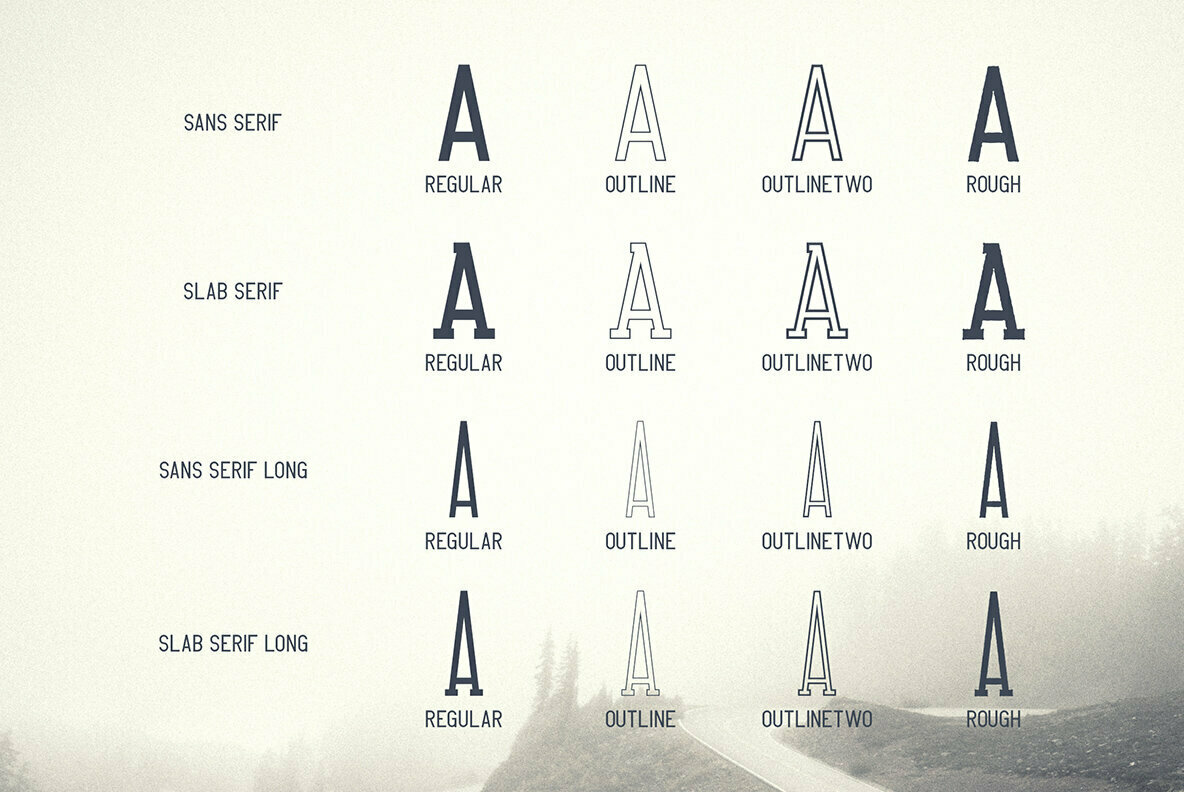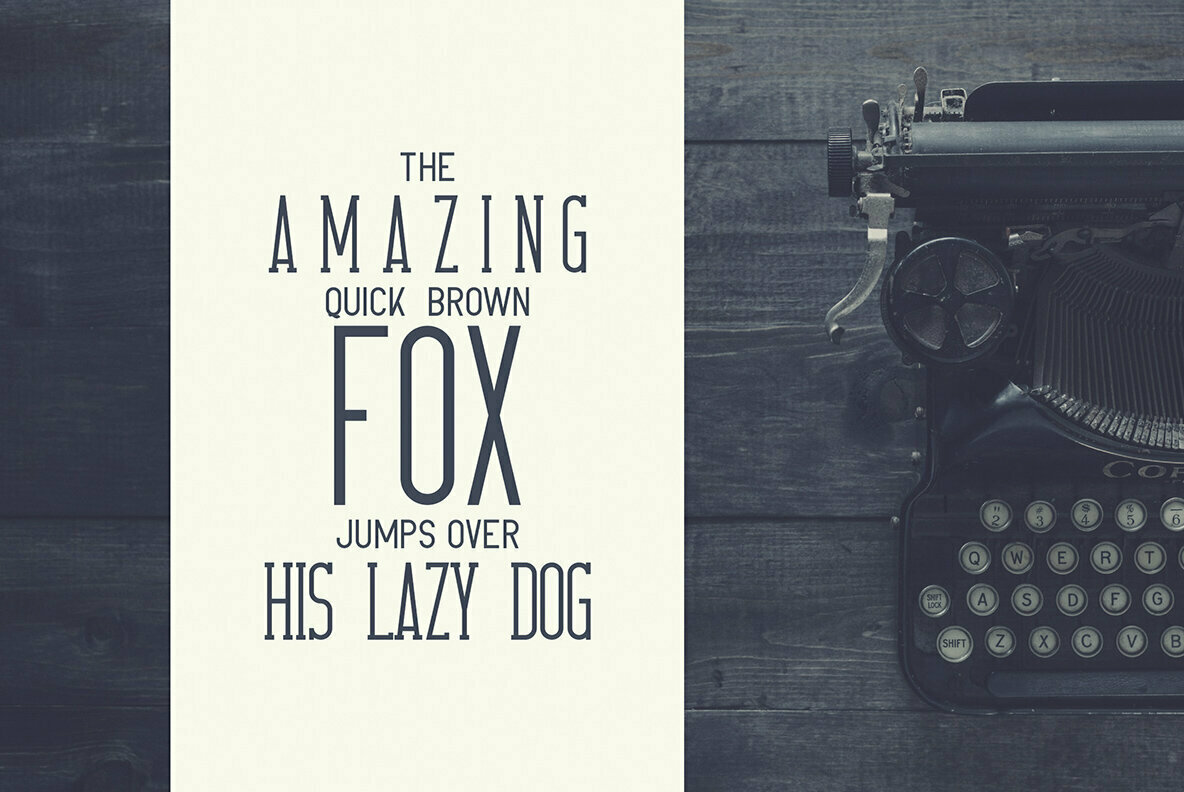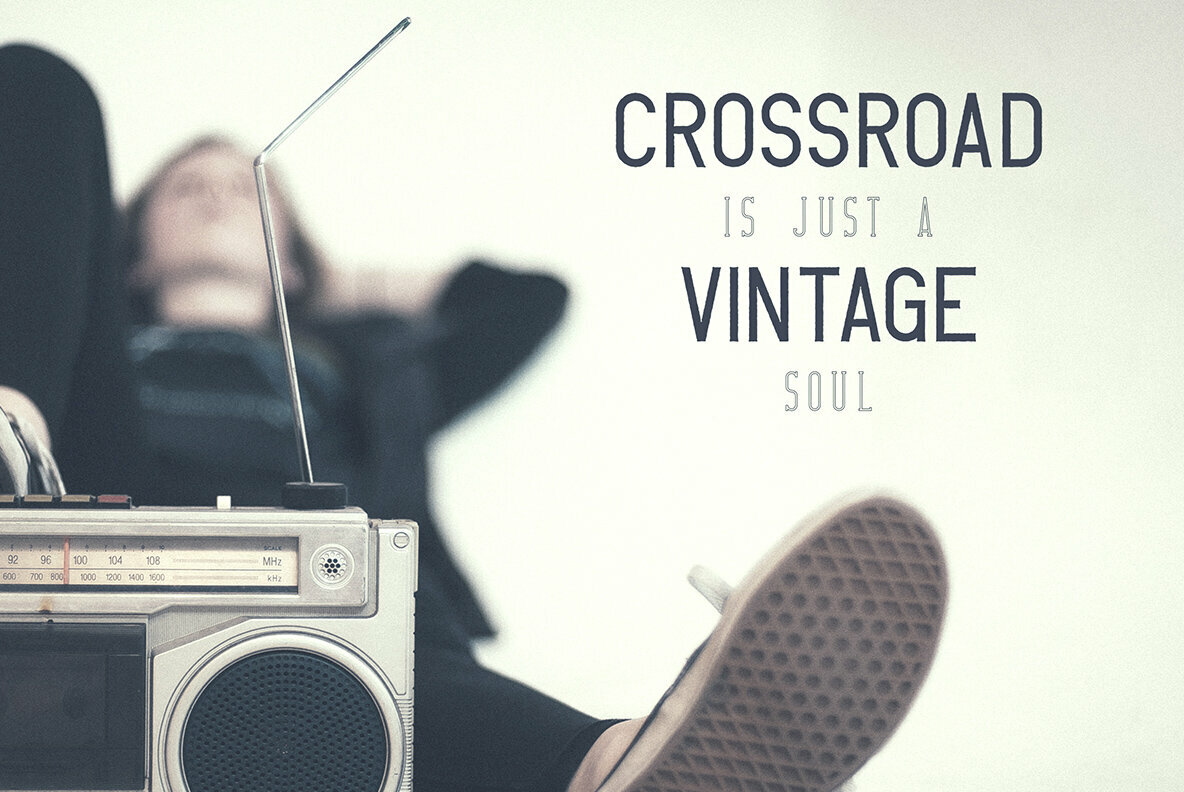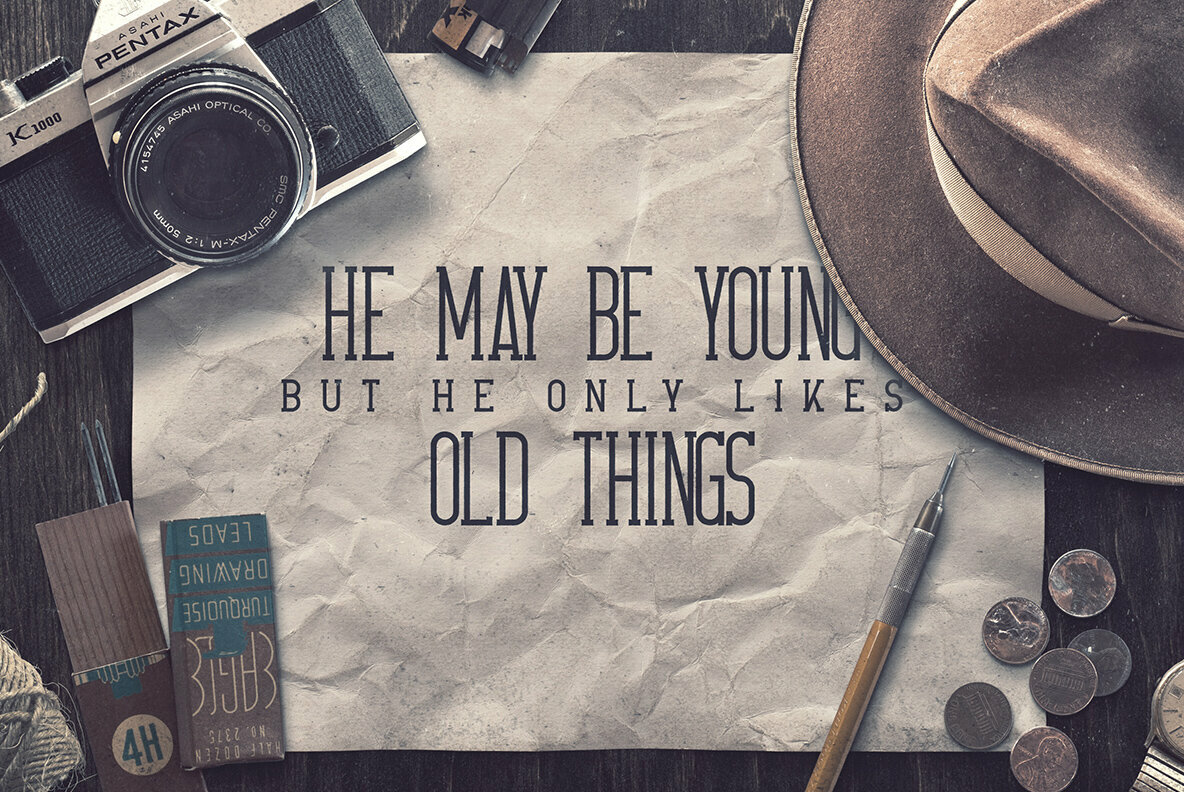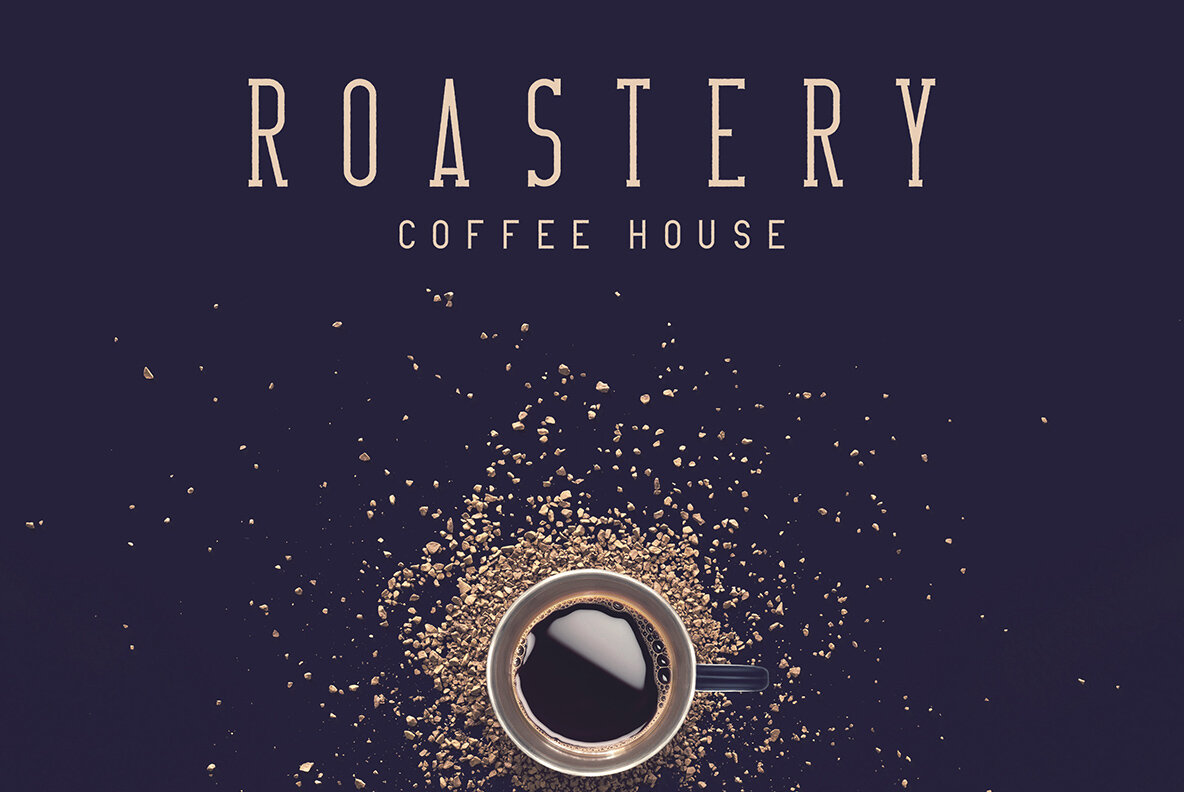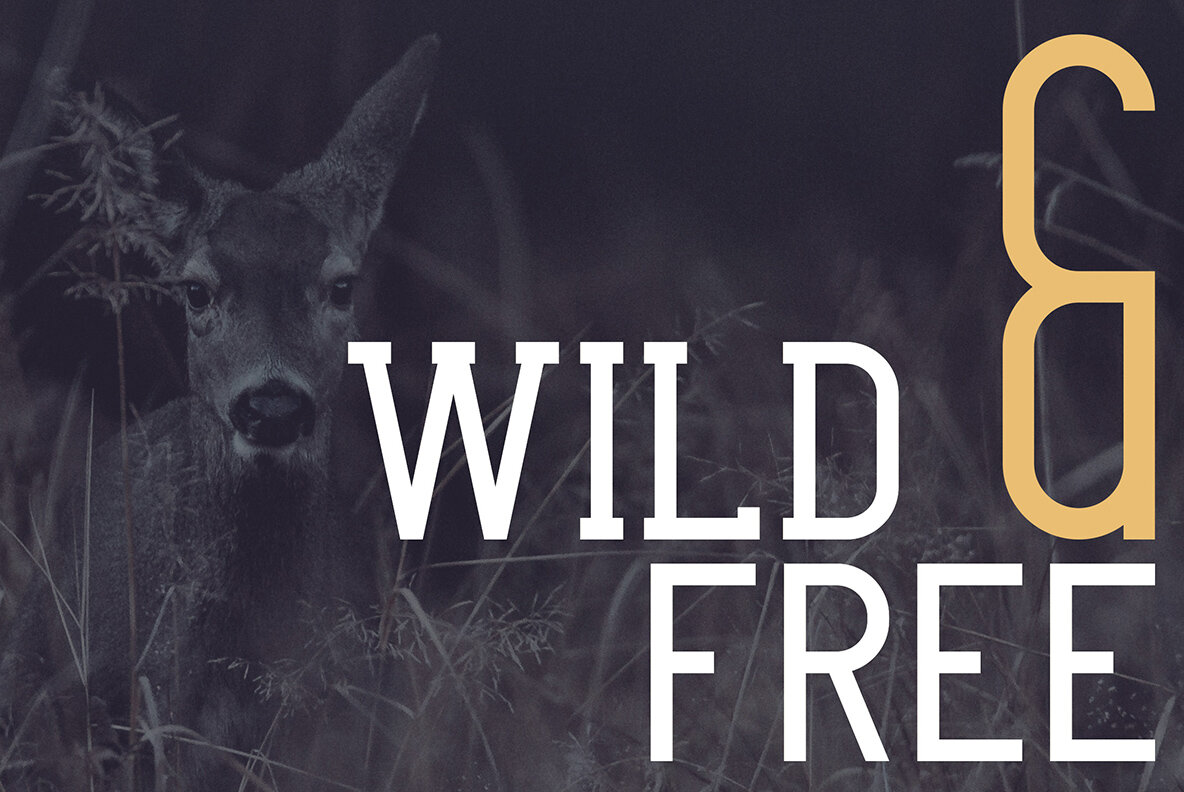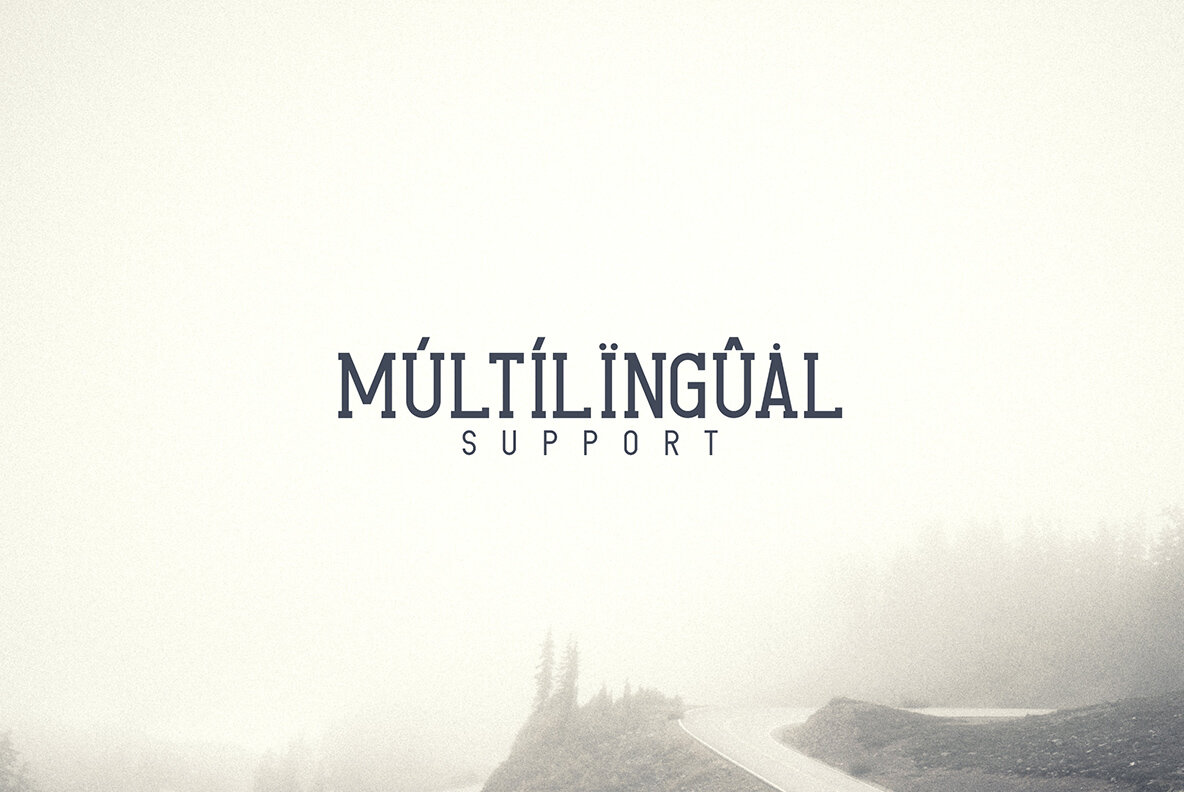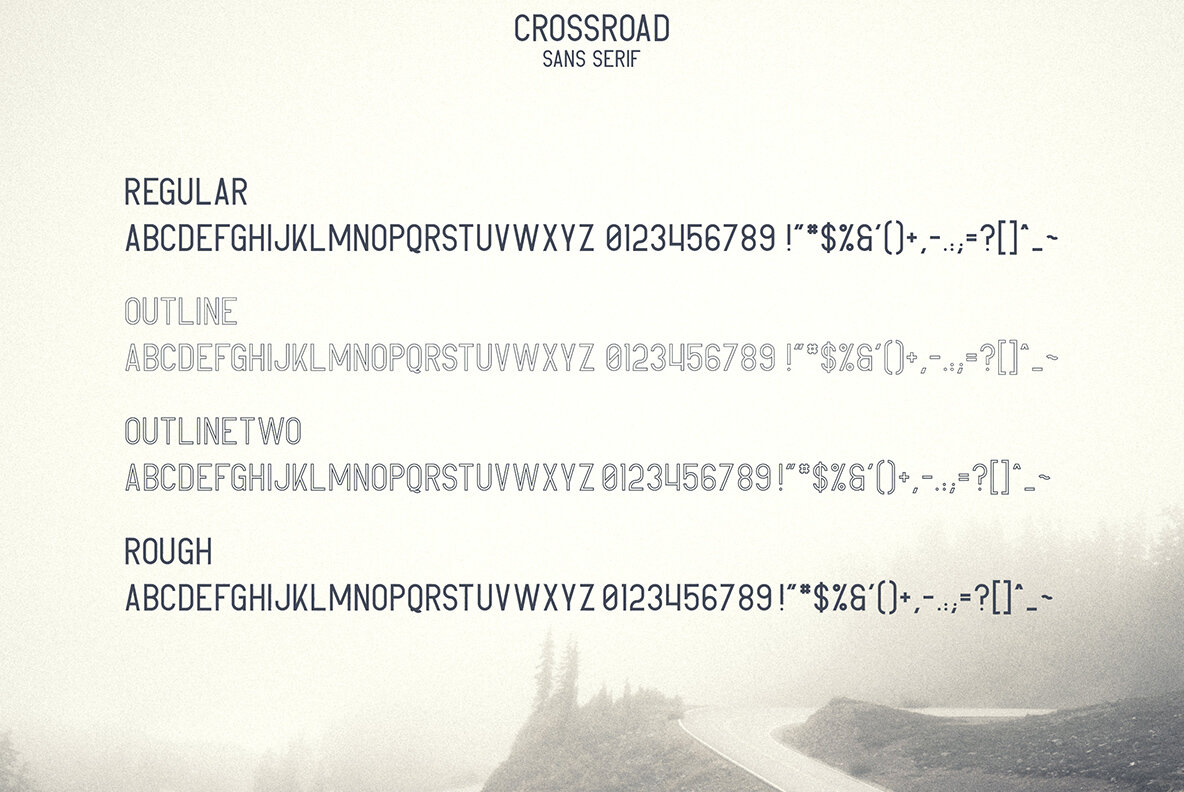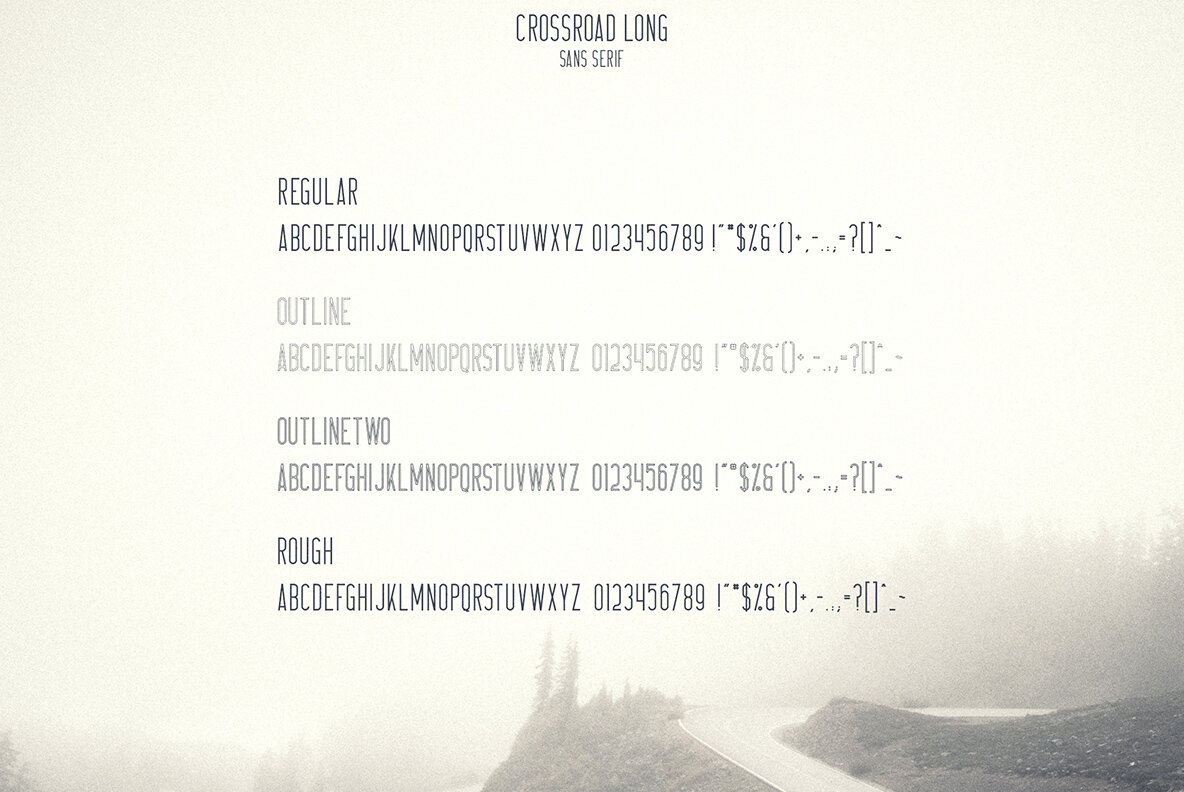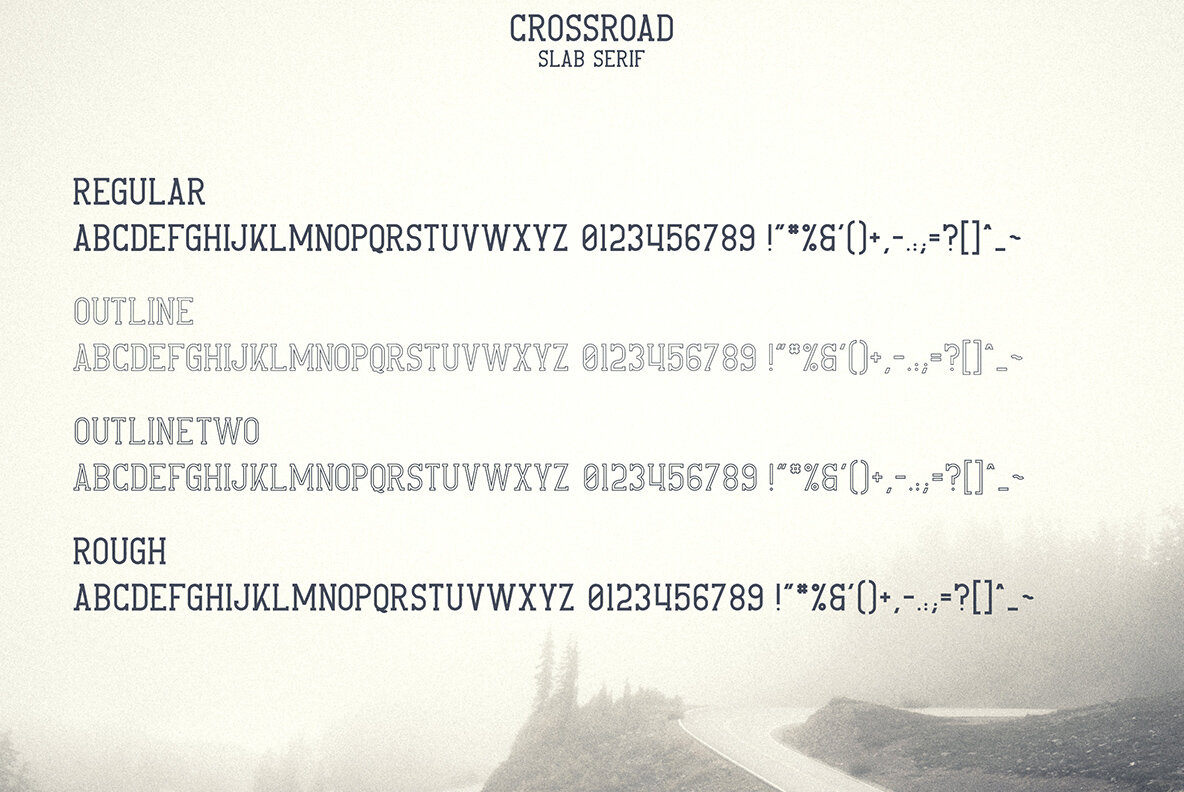
Crossroad Font
Crossroad is a clean, vintage typeface with 16 fonts and multilingual support. It's a very versatile font that works great in large and small sizes.Crossroad is perfect for branding projects, home-ware designs, product packaging, magazine headers - or simply as a stylish text overlay to any background image.
- Uppercase, Lowercase, Numeral, Punctuation & Symbol
- Slab serif
- Stretched
- 2 outline styles
- Rough